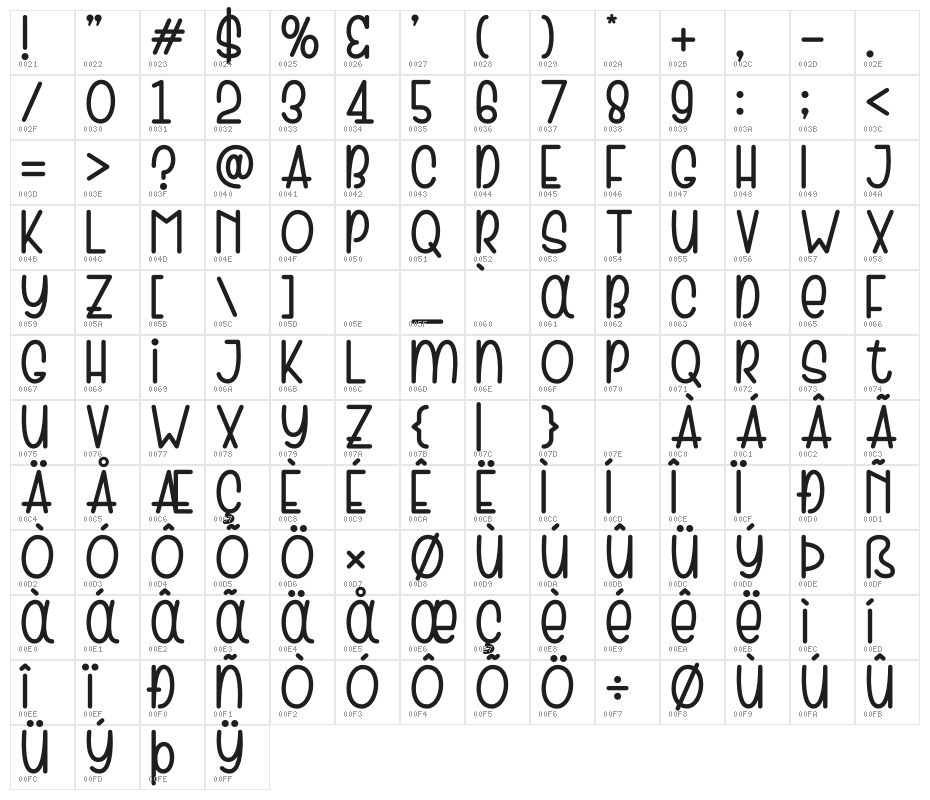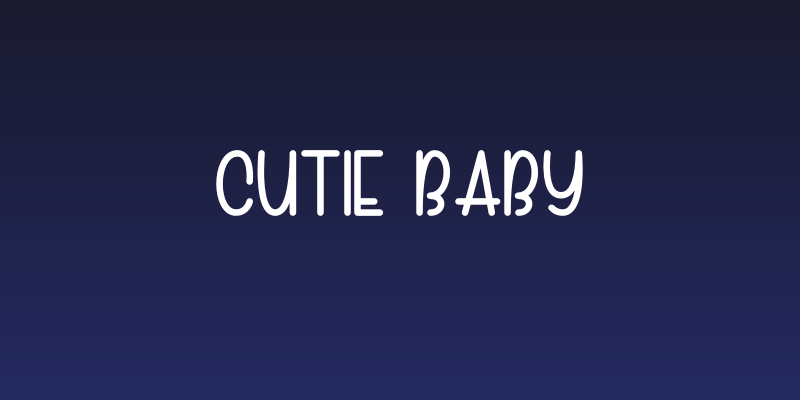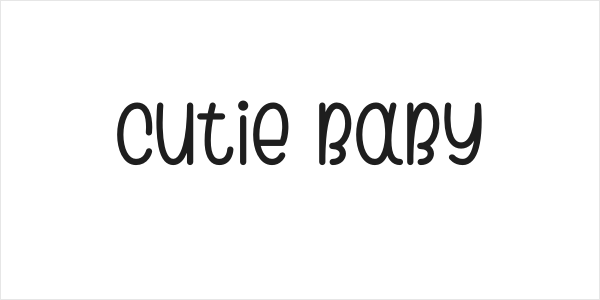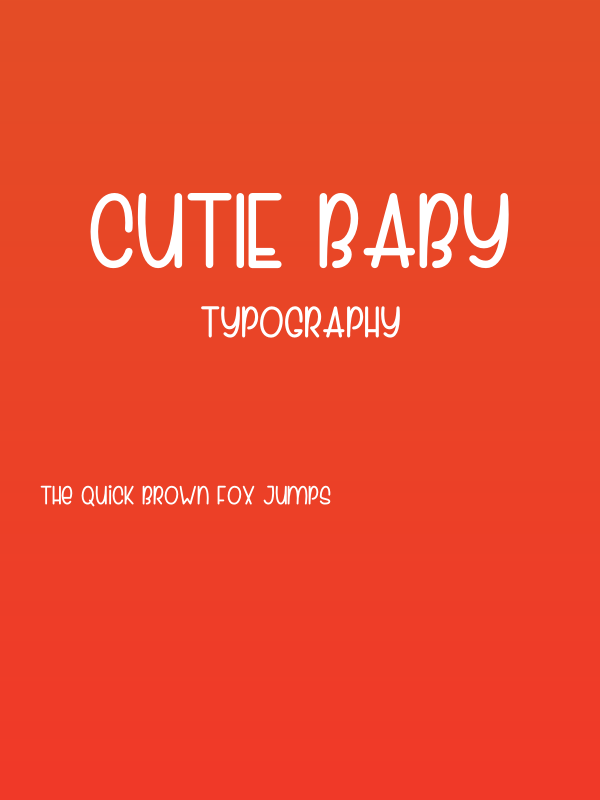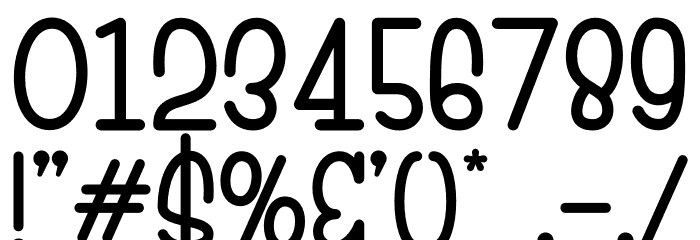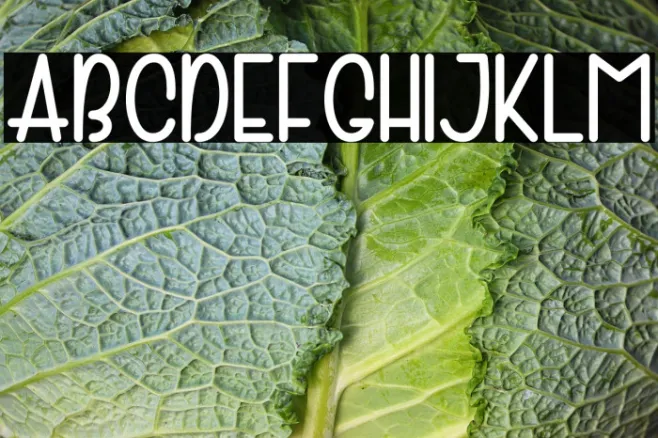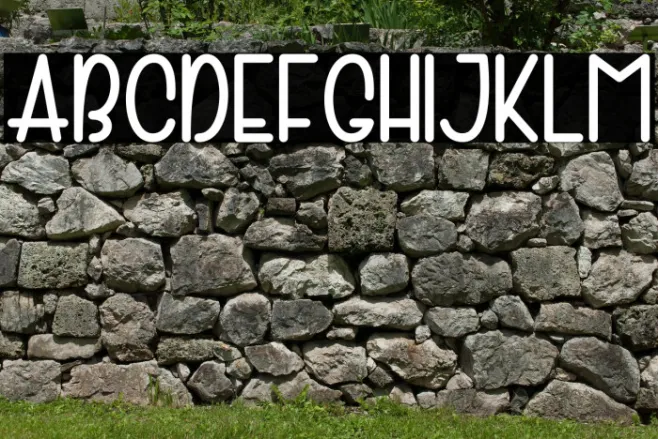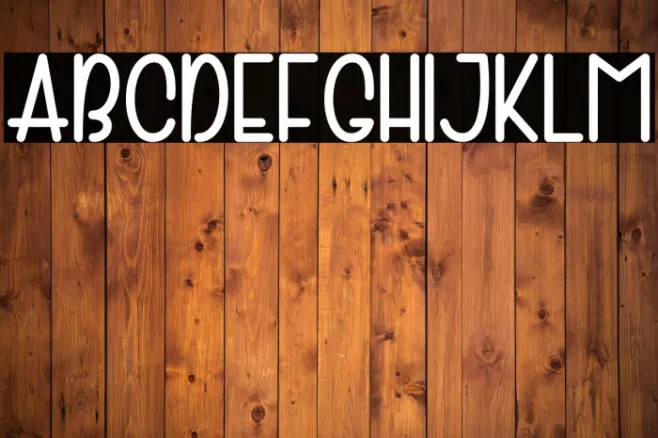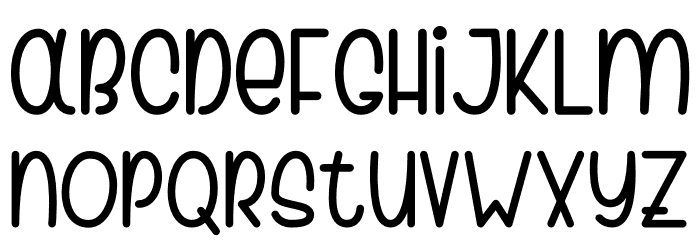
Cutie Baby Font
Cutie Baby Description
This playful and whimsical font features rounded, bubbly characters that exude a sense of fun and friendliness. The letters are slightly elongated with a consistent stroke width, giving it a uniform appearance. The font maintains a casual, handwritten style that is both approachable and versatile. Its smooth curves and lack of sharp edges make it ideal for projects aimed at a younger audience or for those seeking a lighthearted aesthetic. The numerals and special characters are designed to match the playful nature of the alphabet, ensuring a cohesive look across all text elements.
| Use Case | Headlines, Logos, Children's materials |
| Proposed Projects | Ideal for children's books, playful branding, greeting cards, and educational materials. |